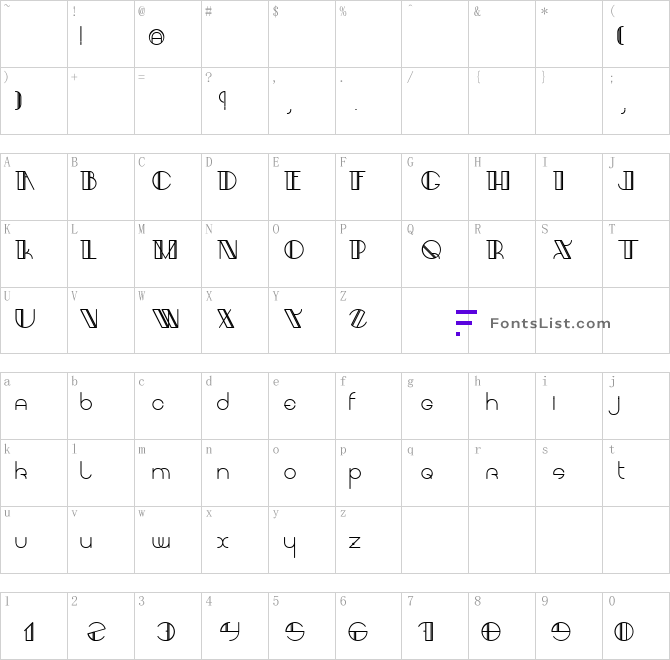
Aracme-Waround-Light.ttf is a very beautiful artistic font, Aracme-Waround-Light.ttf is widely used in the design and printing of various books and pictures,Aracme-Waround-Light.ttf has a strong visual impact,Aracme-Waround-Light.ttf is a commonly used font in newspapers, magazines and books, and is used in posters, e-commerce Poster design, store design, logo design, font design and other fields.Aracme-Waround-Light.